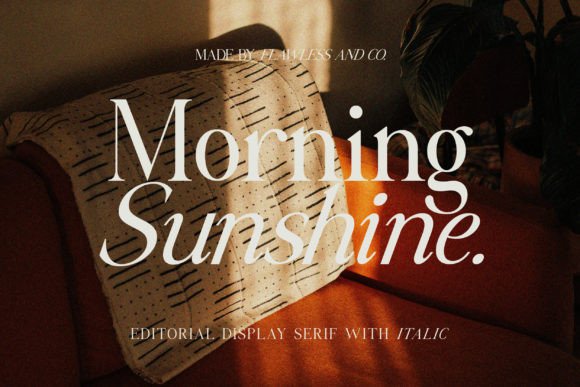
Introducing Morning Sunshine Font, the epitome of chic and fashion in the world of serif fonts! Developed by the renowned Flawless And Co., this font is here to revolutionize your projects and leave you in awe of its breathtaking outcome. Get ready to embark on a journey where creativity meets elegance!
With Morning Sunshine Font, your words will come alive on the screen like never before. This font is specifically designed to enhance readability and captivate your audience. Its flawless curves and refined details make it the perfect choice for any text, no matter the size or context. From blog posts to social media graphics, this font will elevate your content and make it truly unforgettable.
Imagine your website or app adorned with the Morning Sunshine Font. It's like a breath of fresh air, instantly grabbing attention and creating a captivating user experience. Your visitors won't be able to resist exploring further, drawn in by the charm and sophistication exuded by this font. Say goodbye to boring typography and welcome a new era of elegance.
But Morning Sunshine Font is not just about aesthetics; it's also about functionality. This font is meticulously crafted to ensure optimal legibility on screens of all sizes. Whether your audience is browsing on a smartphone, tablet, or desktop, rest assured that your text will be crystal clear and easy to read. No more squinting or straining their eyes – Morning Sunshine Font takes care of it all.
What makes Morning Sunshine Font truly exceptional is its versatility. It seamlessly adapts to any design style, effortlessly complementing your visuals and adding a touch of sophistication. Whether you're going for a modern, minimalist look or a vintage, retro vibe, this font will effortlessly blend in and enhance your overall aesthetic.
So, why settle for ordinary when you can embrace extraordinary? Morning Sunshine Font is here to elevate your designs, captivate your audience, and leave a lasting impression. Step into the world of chic and fashion with this remarkable serif font, and let your creativity shine like never before.